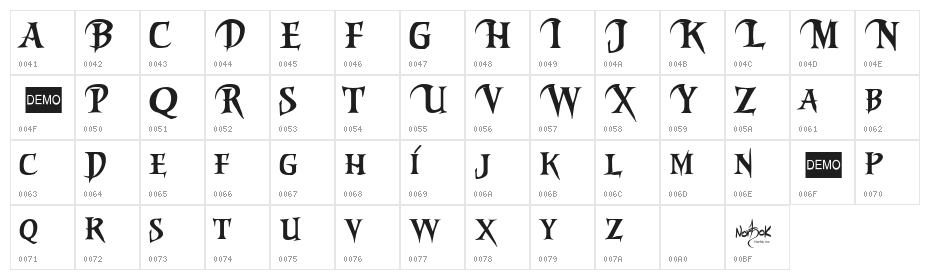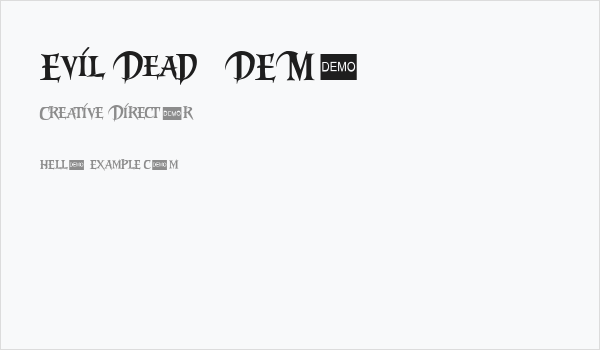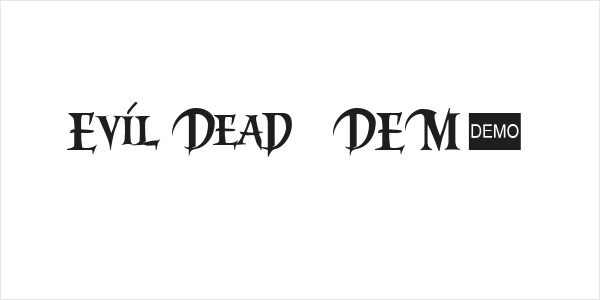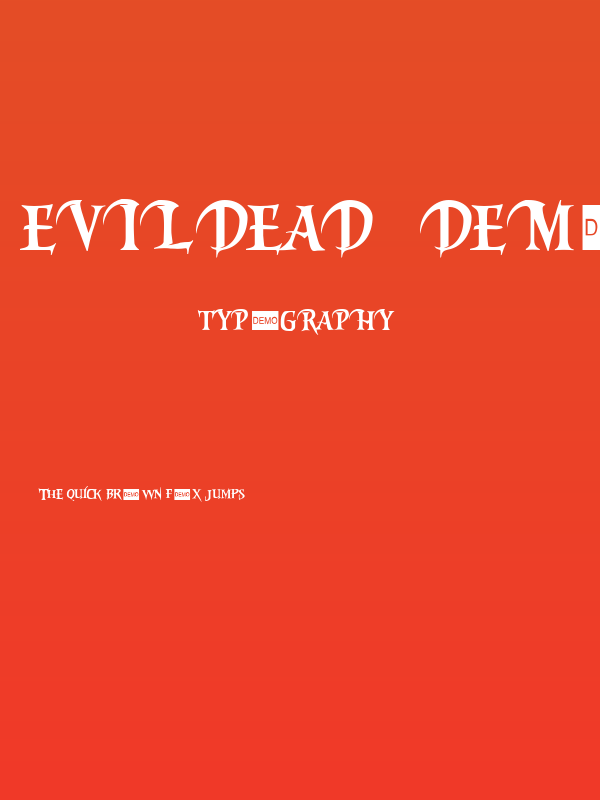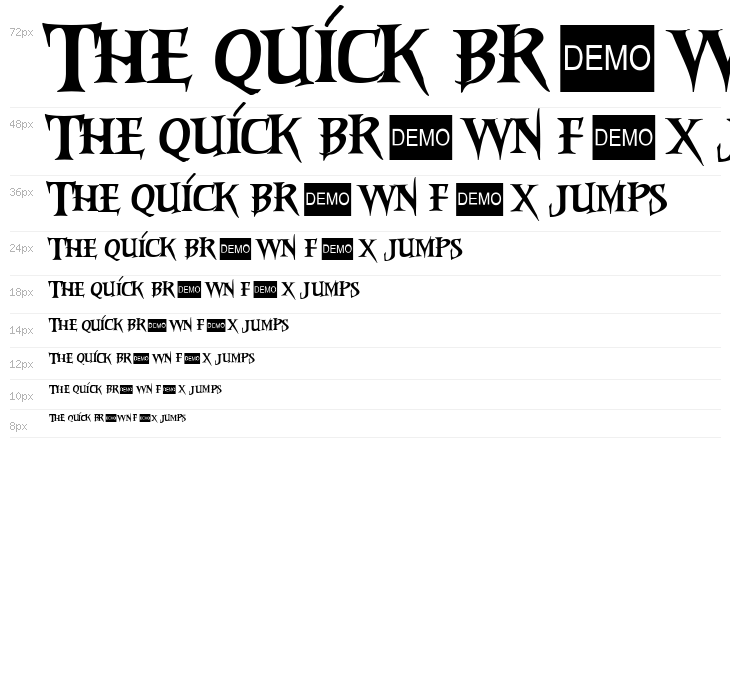
Evil Dead 3 DEMO Font
Evil Dead 3 DEMO Description
This font features a dramatic and edgy design, characterized by sharp, pointed serifs and a gothic aesthetic. The letters have a bold presence, with a unique blend of traditional serif elements and modern, angular strokes. The overall look is reminiscent of medieval or horror-themed typography, making it ideal for projects that require a dark, mysterious, or intense visual impact. The uppercase and lowercase letters maintain a consistent style, with a slight variation in the curvature and sharpness of the serifs. The numbers and special characters follow the same design principles, ensuring a cohesive appearance across all text elements.
| Overall Style | Gothic, Dramatic |
| Proposed Projects | Ideal for horror movie posters, gothic-themed events, Halloween invitations, or any project needing a dark, intense aesthetic. |